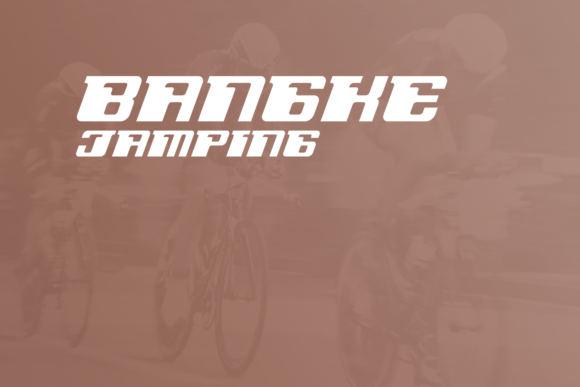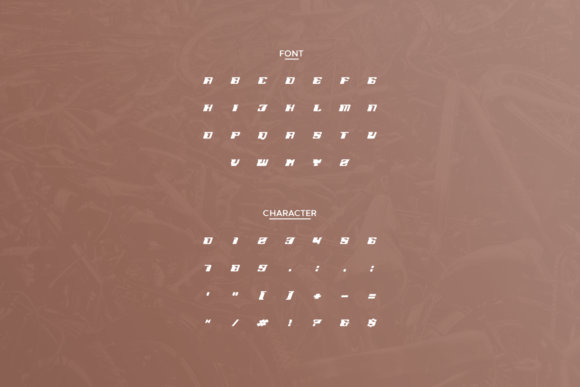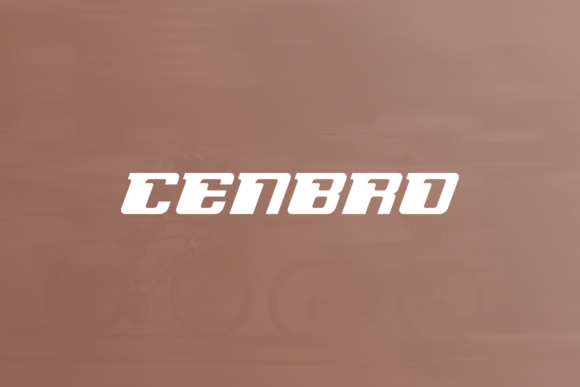
Bacron Font: Elevate Your Designs with a Stylish and Modern Sans-Serif Font
In the world of typography, fonts play a crucial role in conveying the tone and personality of a design. Whether you’re a graphic designer, a crafty DIY enthusiast, or a digital artist, having the right font can make all the difference. If you’re looking for a stylish and modern sans-serif font that can elevate your creations, look no further than Bacron Font. In this article, we’ll explore the features and benefits of Bacron Font, and why it’s an incredible asset to your fonts’ library.
What is Bacron Font?
Bacron Font is a sleek and contemporary sans-serif font designed to add a touch of sophistication to any design project. Its clean lines, precise curves, and balanced proportions make it perfect for a wide range of applications, from digital designs to print materials. Bacron Font is versatile, elegant, and highly legible, making it an excellent choice for designers and crafters who want to create stunning visuals.
Key Features of Bacron Font
So, what sets Bacron Font apart from other fonts? Here are some of its key features:
- Stylish and Modern Design: Bacron Font boasts a stylish and modern design that’s perfect for creating trendy and eye-catching visuals.
- Sans-Serif Style: The font’s sans-serif style gives it a clean and minimalist look that’s ideal for designs that require a professional and sleek aesthetic.
- High Legibility: Bacron Font is designed to be highly legible, even at small sizes, making it perfect for body text and captions.
- Versatile: Bacron Font can be used for a wide range of design projects, from logos and branding to posters, flyers, and digital graphics.
Benefits of Using Bacron Font
So, why should you choose Bacron Font for your design projects? Here are some benefits of using this amazing font:
- Elevate Your Designs: Bacron Font has the potential to elevate any design project, adding a touch of sophistication and style.
- Save Time: With Bacron Font, you can create stunning visuals quickly and easily, saving you time and effort.
- Stand Out: Bacron Font is a unique and stylish font that can help your designs stand out from the crowd.
| Author | Letterna |
In conclusion, Bacron Font is a stylish and modern sans-serif font that’s perfect for designers and crafters who want to elevate their designs. With its clean lines, precise curves, and balanced proportions, Bacron Font is highly legible and versatile, making it suitable for a wide range of design projects. Whether you’re creating digital designs or print materials, Bacron Font is an incredible asset to your fonts’ library. So why not give it a try and see how it can transform your designs?
- Bacron Font is a stylish and modern sans-serif font.
- It’s highly legible and versatile, making it suitable for a wide range of design projects.
- Bacron Font can elevate any design project, adding a touch of sophistication and style.